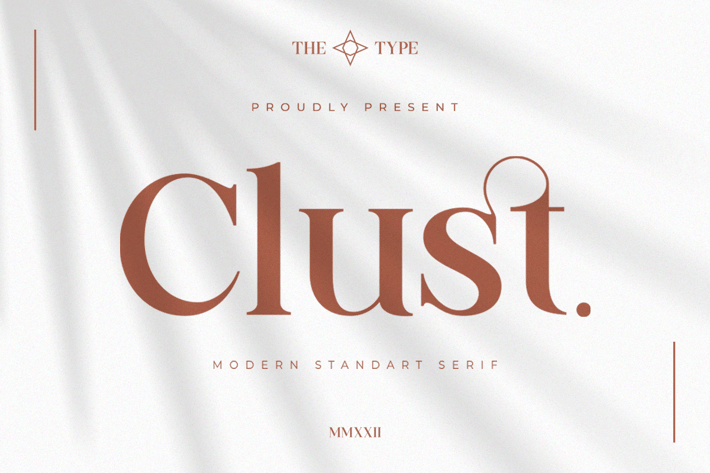
Clust - Modern Serif Font
Clust - a modern serif font Inspired by elegant and luxury. This font can look more classic (conservative) serif, which is perfect for texts. So same he can be more expressive, playing and more modern with alternative substitutes and ligatures, try to play with them and you will get the uniqueness in your project.
Clust Features:
Alternates & Ligatures
Numerals & Punctuation
Accented characters